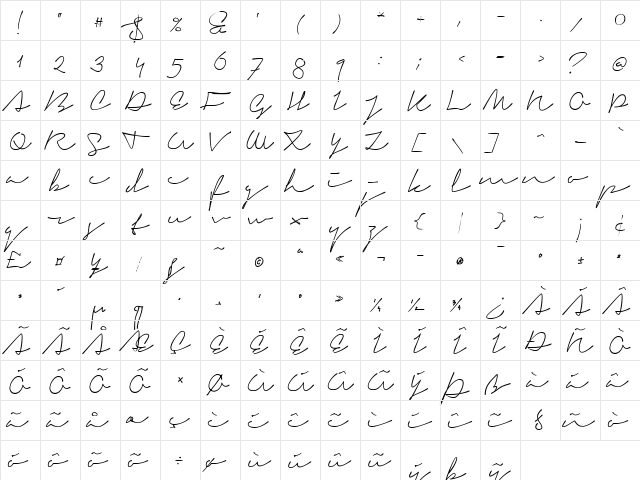
Signerica Medium Regular Font Preview
Signerica Medium Regular
Signerica Medium Regular Font Details
| Foundry | M害 Greb䣫 |
| Designer | M害 Greb䣫 |
Design Context for Signerica Medium Typeface
Signerica Medium is a composed and adaptable typeface that performs quietly and consistently across a wide range of design contexts.